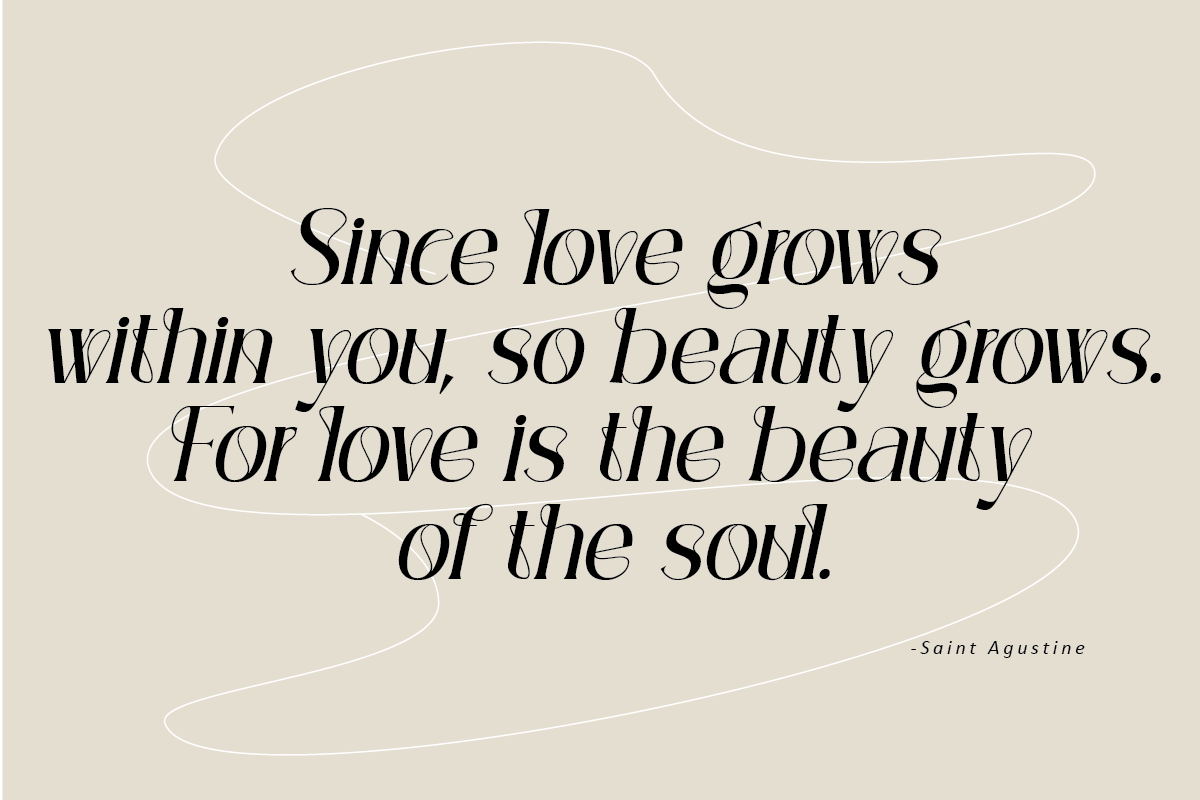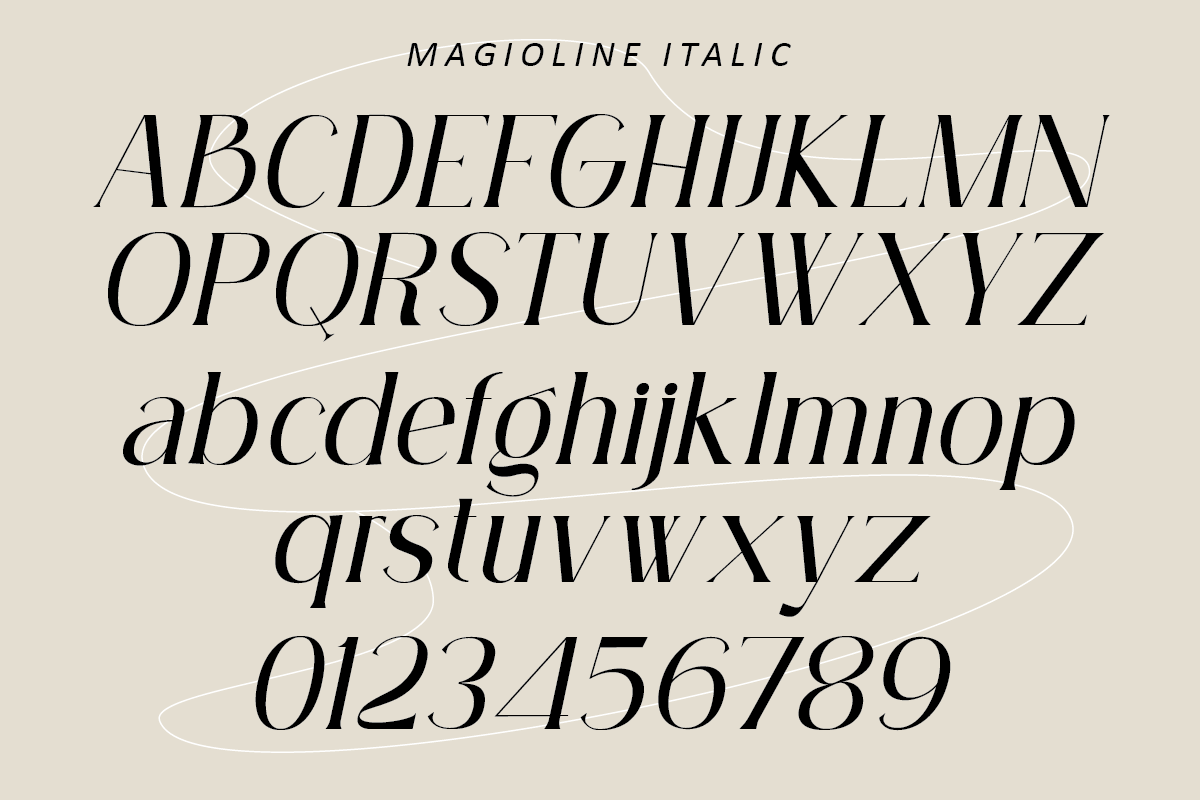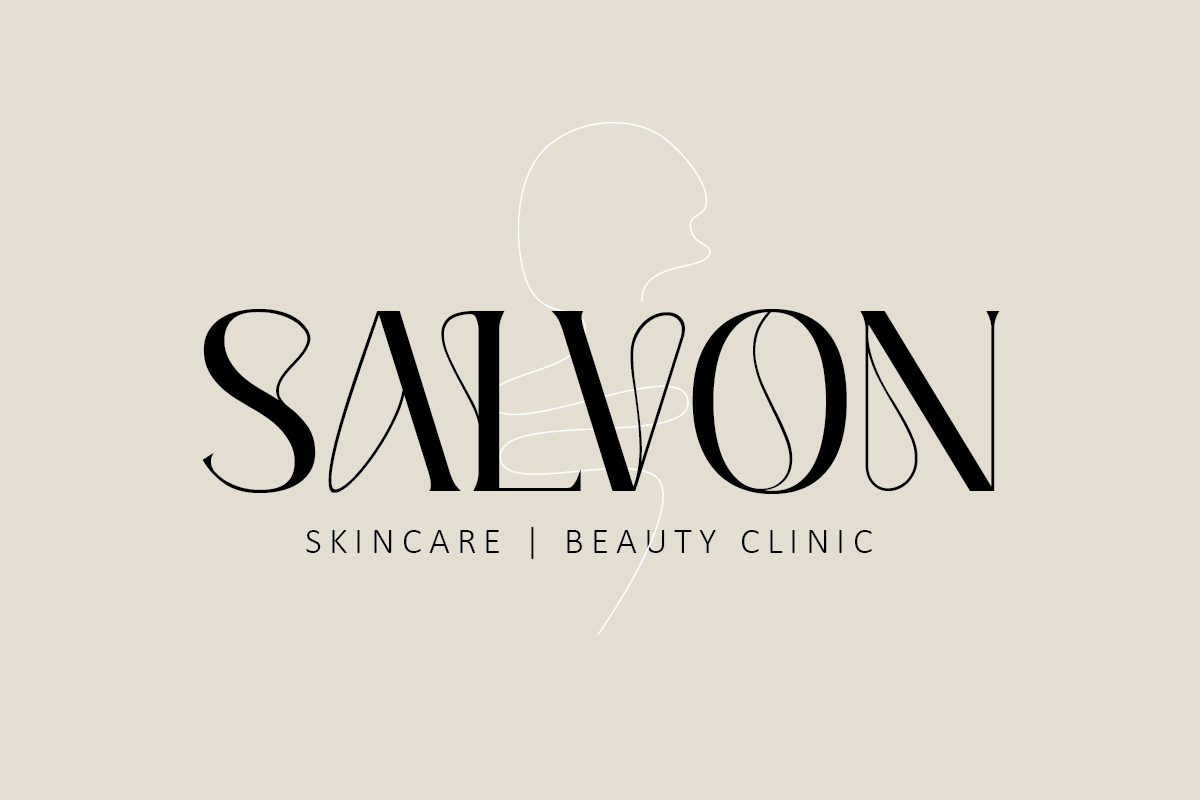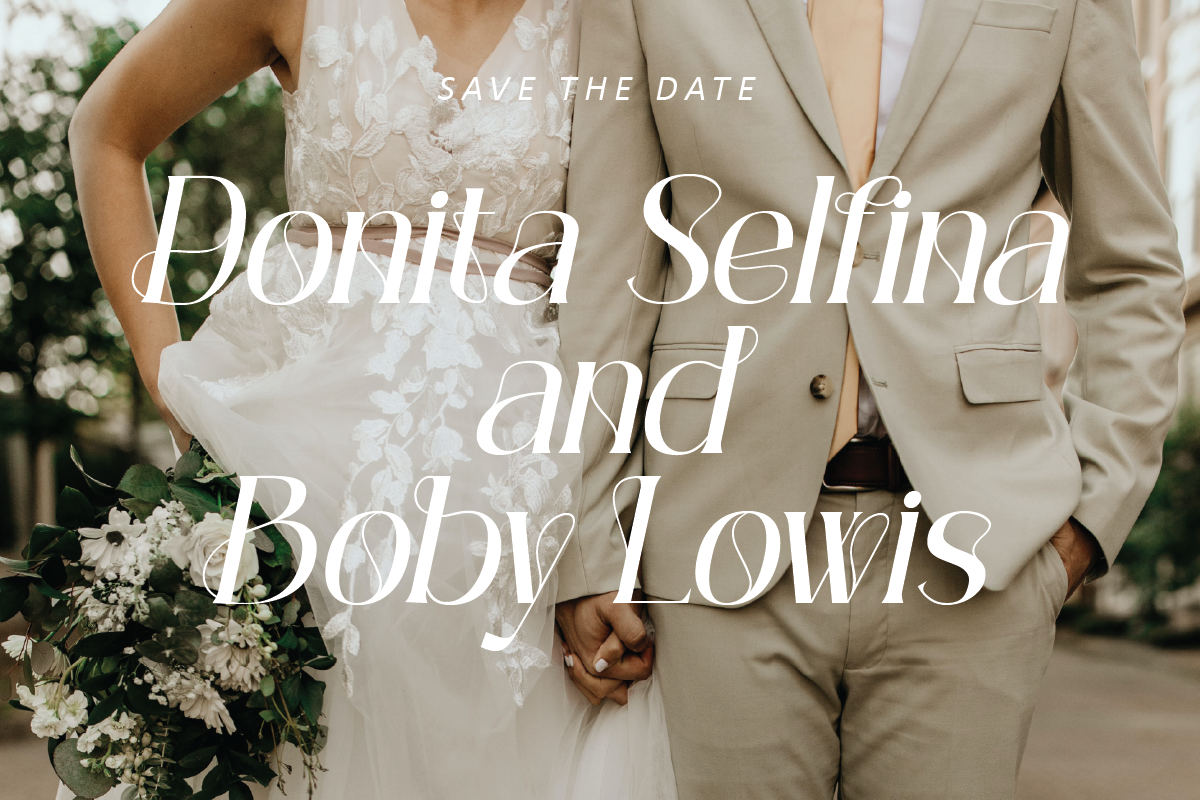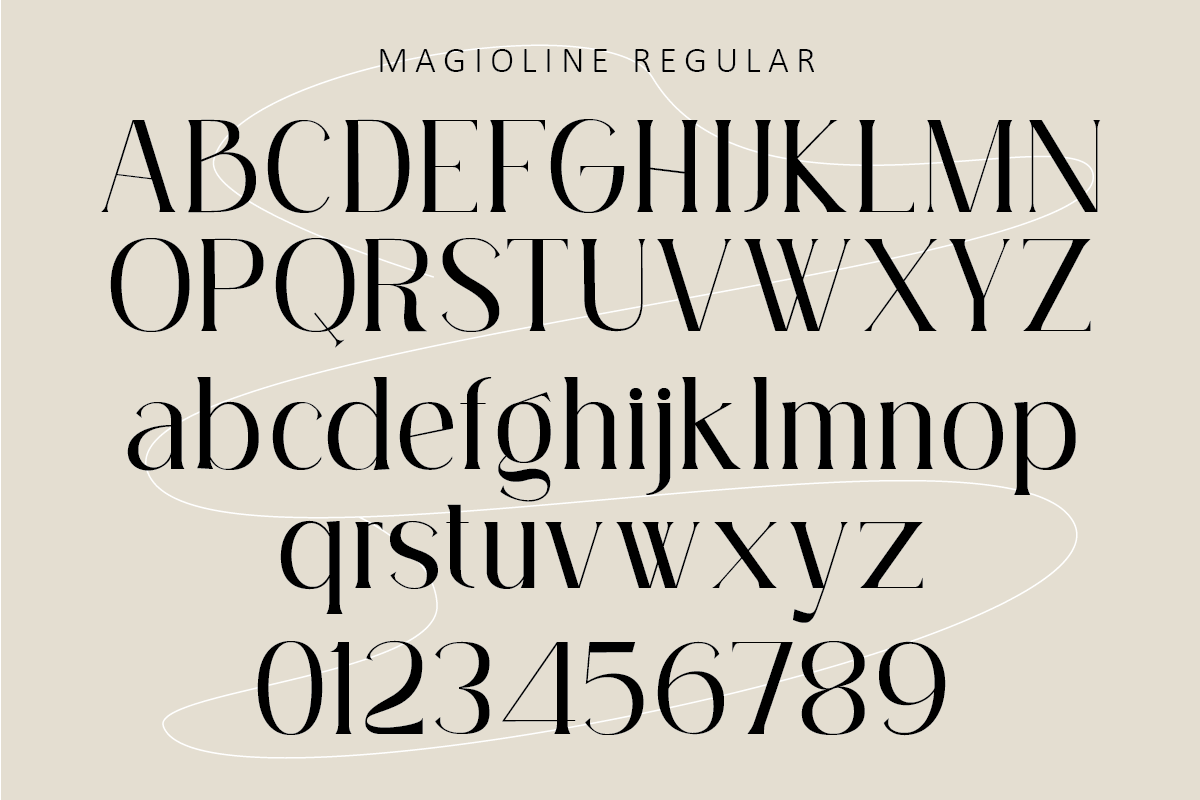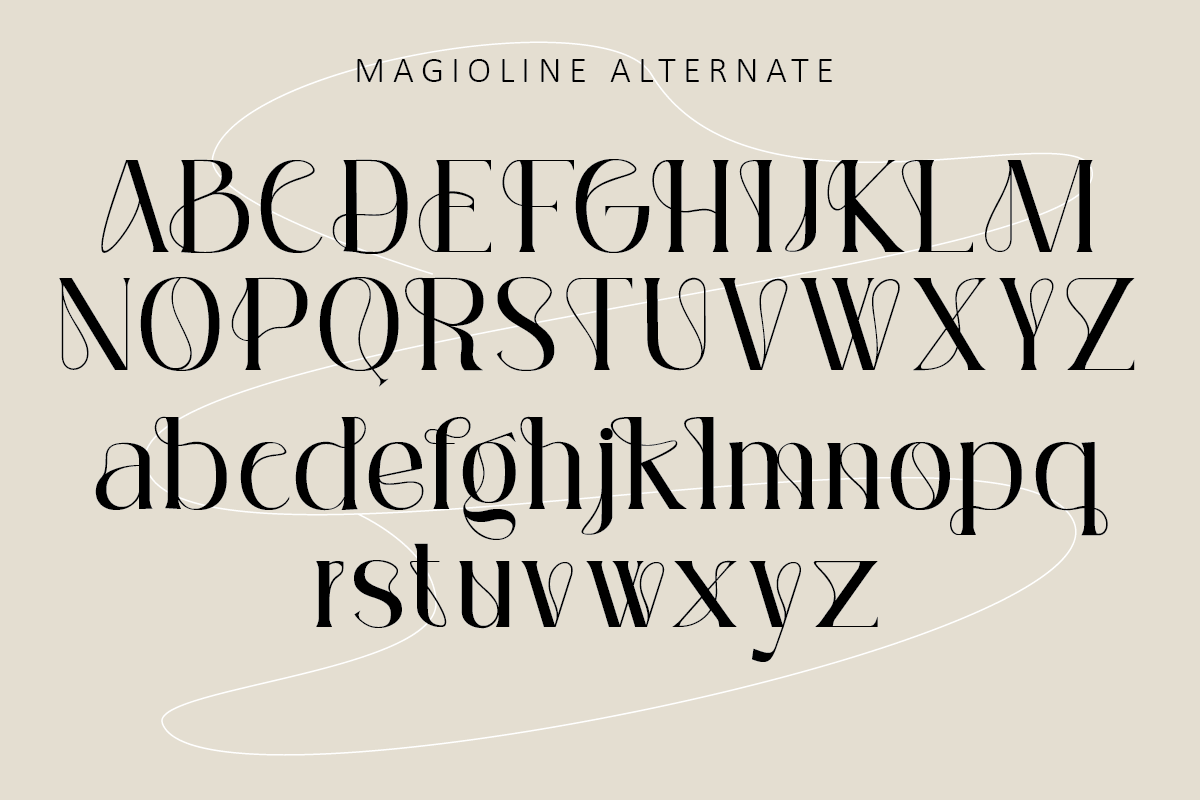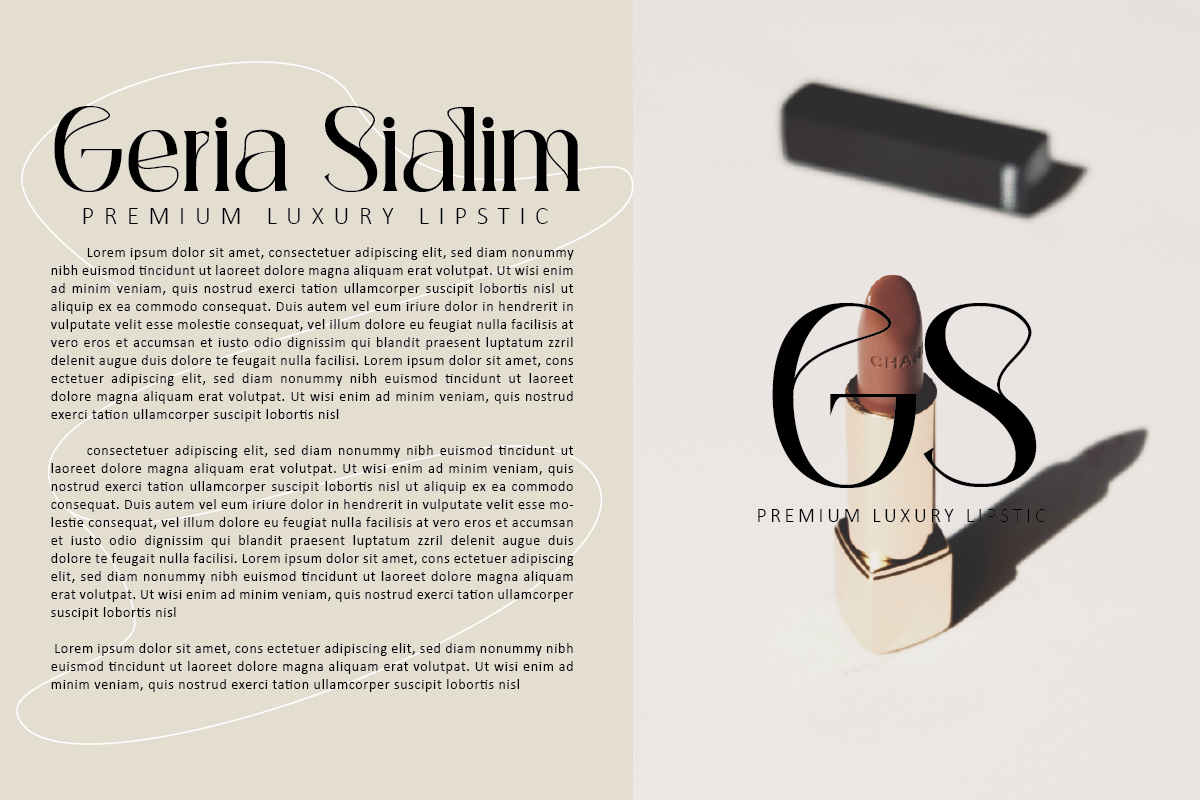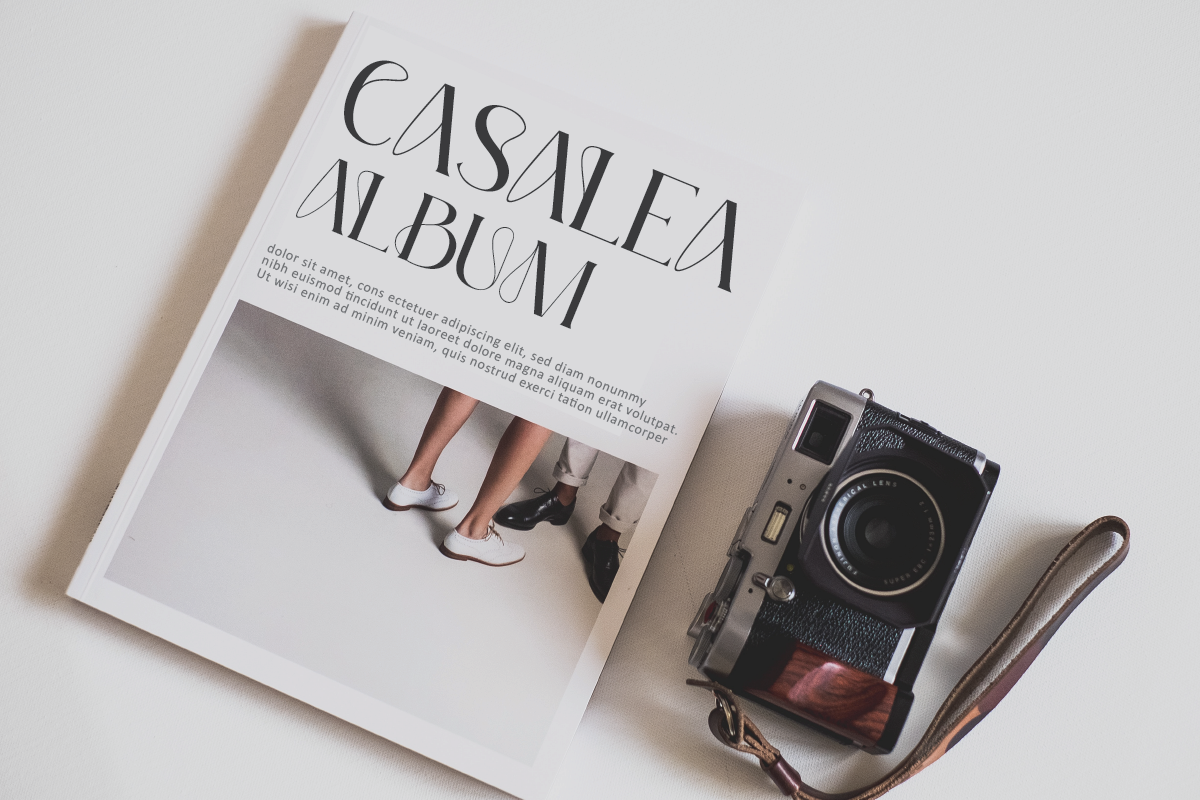
Magioline
Magioline Modern serif Font typeface with beautiful alternate, special glyphs, ornament and multilingual support. It's a very versatile font that works great in large and small sizes. Perfect for editorial projects, Logo design, Clothing Branding, product packaging, magazine headers, or simply as a stylish text overlay to any background image.
Features: Lowercase and Uppercase Numerals , Punctuation & Alternate